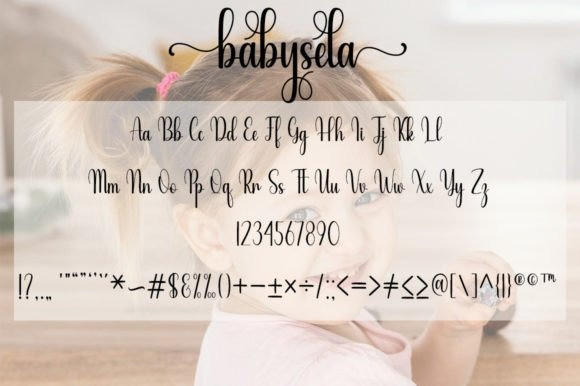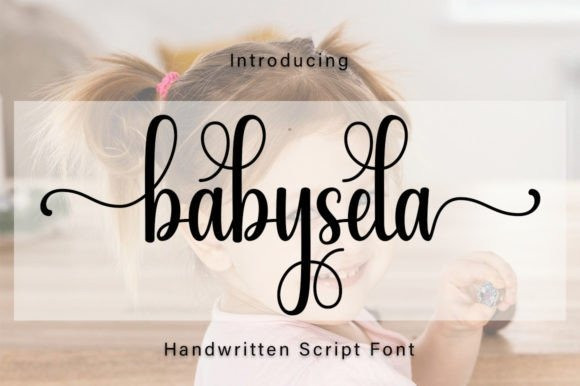
Baby Sela Font
Baby Sela Font is a beautiful and charming handwritten font that evokes feelings of romance and sweetness. Its flowing curves and gentle strokes create an intimate and personal touch, perfect for wedding invitations, love letters, and any project that requires a touch of warmth and tenderness.